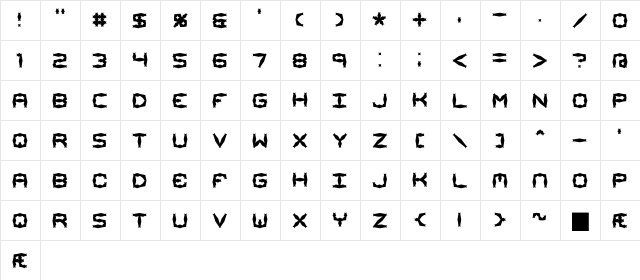
Mishmash ALT1 BRK Regular
| Foundry | ƎIGMA FONTS |
| Designer | ƎIGMA FONTS - Brian Kent |
Design Context for Mishmash ALT1 BRK Typeface
Mishmash ALT1 BRK takes a measured approach to typography — its balanced proportions and neutral character make it a reliable workhorse for both digital and print work.